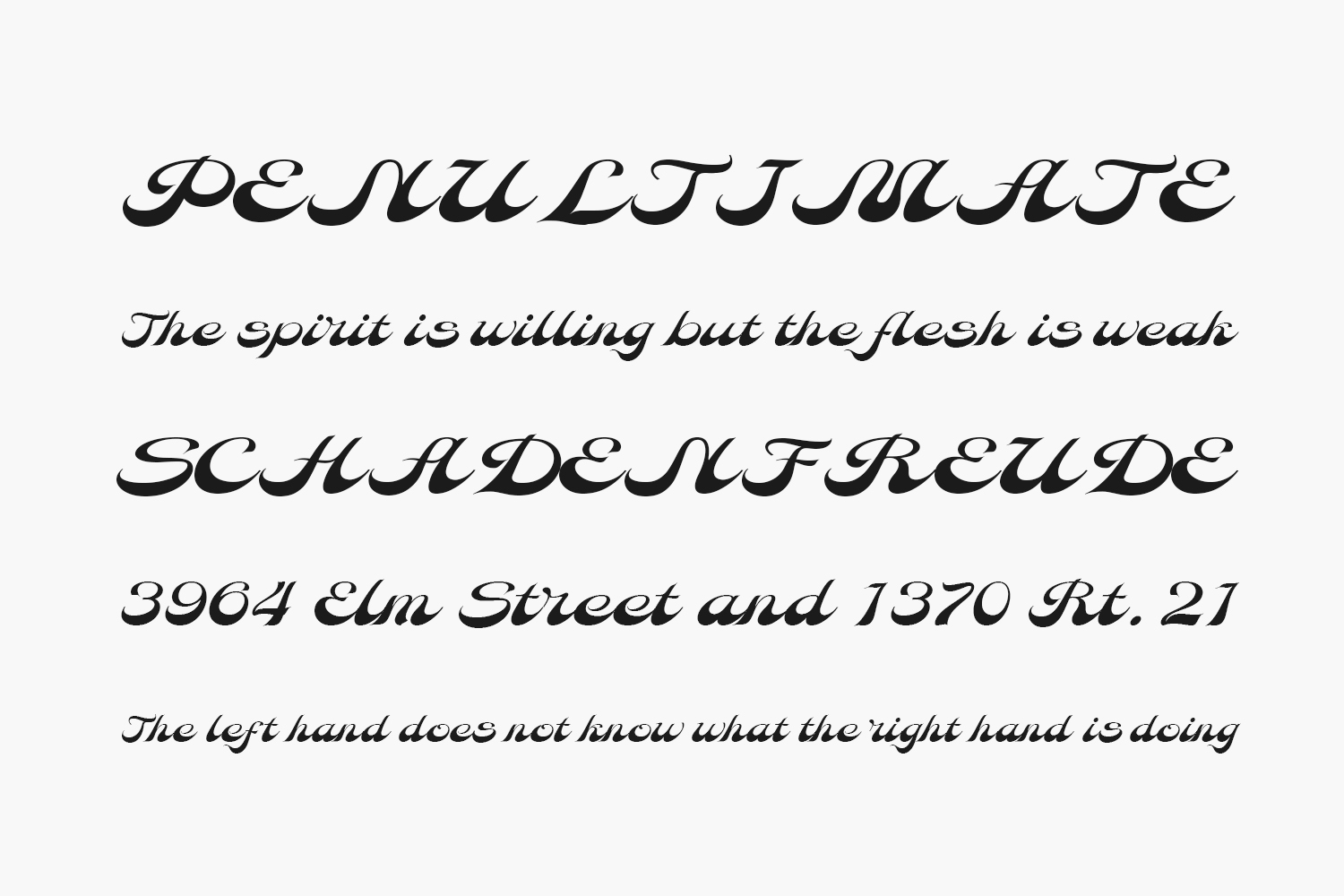
Hoky Mint Free Font is a distinctive display font that exudes a retro charm. With its trendy and stylish appeal, this font has the power to elevate all your creative projects. By incorporating Hoky Mint into your designs, you can infuse them with a sense of nostalgia and uniqueness. This retro-styled typeface is perfect for making a bold statement and capturing attention. Hoky Mint Free Font is free for personal use only. Please purchase the full version for commercial use.